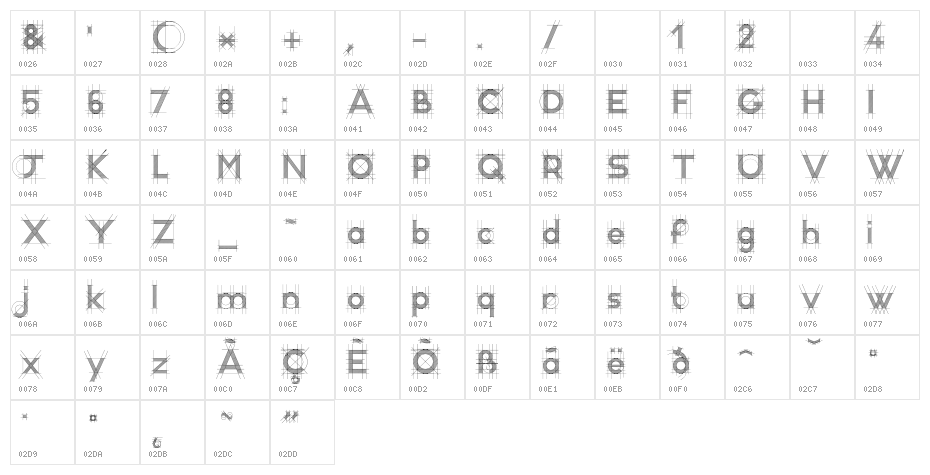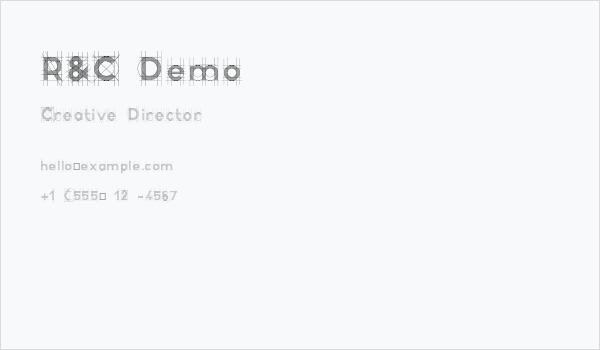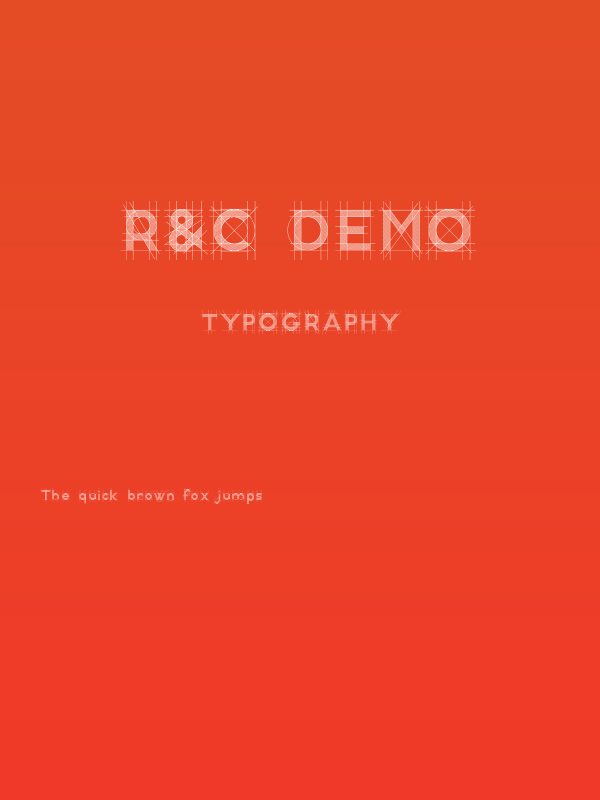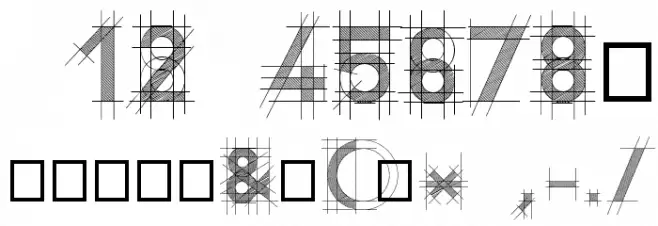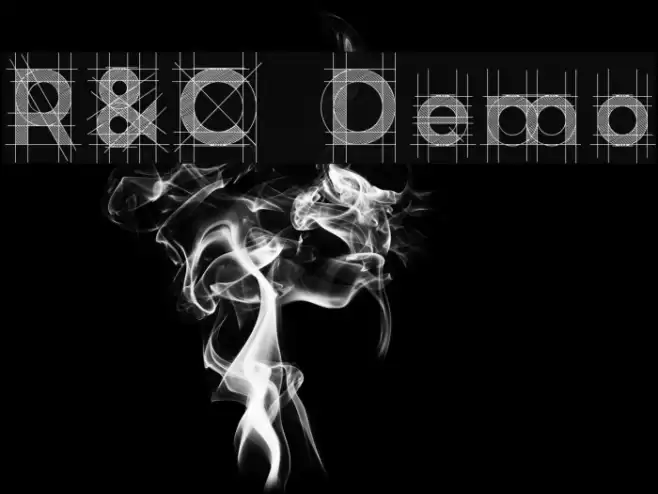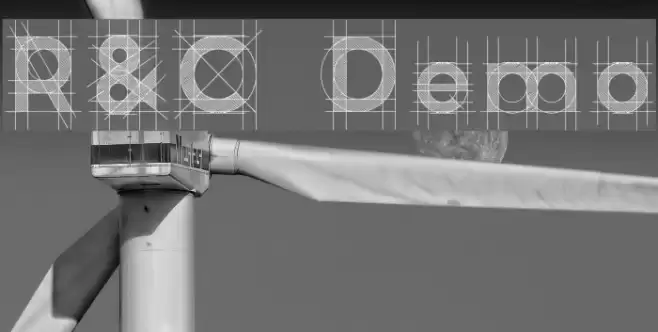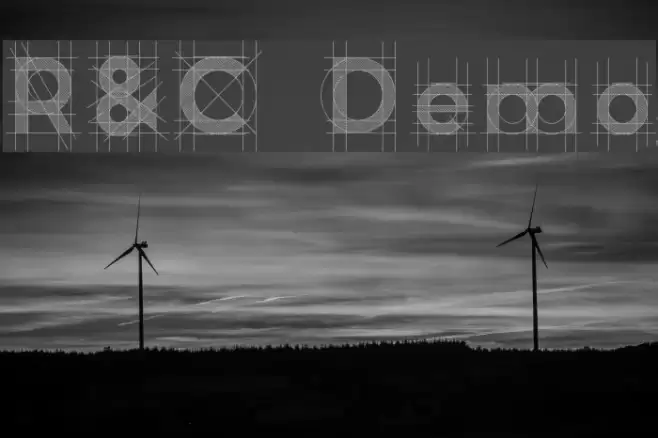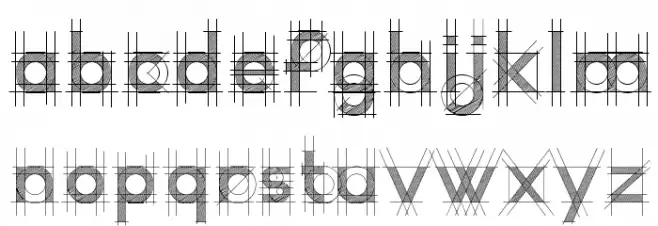
R&C Demo Font
R&C Demo Description
This font features a highly geometric and structured design, characterized by its use of precise lines and circles that create a technical and architectural feel. Each character is constructed with a grid-like pattern, incorporating intersecting lines and circular elements that give it a mechanical and engineered appearance. The uppercase and lowercase letters maintain a consistent style, with a focus on symmetry and balance. The numerals and special characters follow the same design principles, ensuring uniformity across the entire typeface. This font's unique style makes it stand out as a modern and innovative choice for projects that require a technical or futuristic aesthetic.
| Use Case | Logos, Headlines, Technical documents |
| Proposed Projects | Ideal for architectural presentations, technical manuals, modern branding, and futuristic designs. |